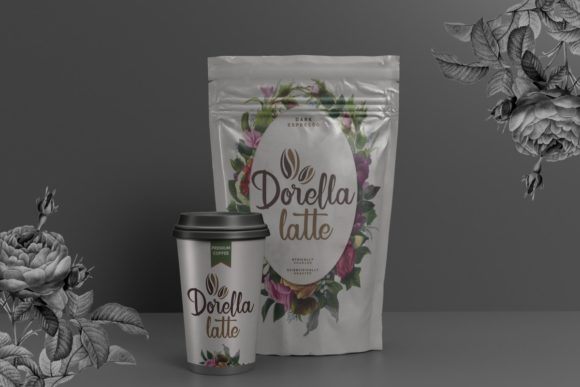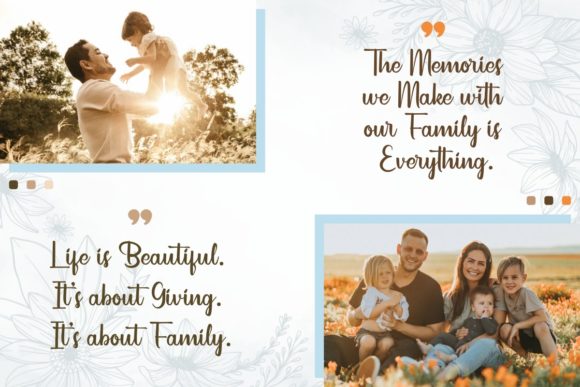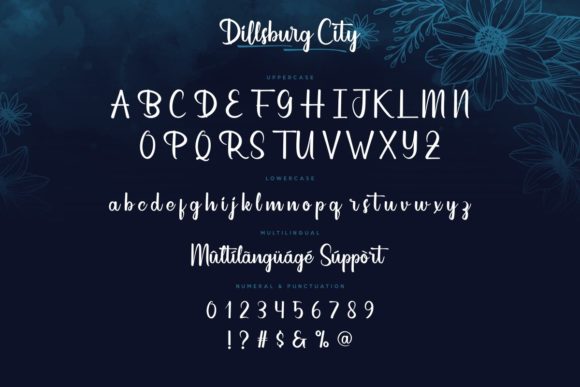
Introduction to Dillsburg City Font
Have you ever been stuck in the midst of a creative project, searching for that perfect font to bring your design to life? As a designer, you know how crucial the right typography can be in setting the tone and aesthetic of your work. I’m sure you’ve found yourself scrolling through font libraries, only to end up with a plethora of options that just don’t quite fit the bill. Well, today’s your lucky day! I’m excited to introduce you to the stunning Dillsburg City Font, a lovely and delicate script font that’s sure to add a touch of luxury to any design project.
Not only does the Dillsburg City Font exude elegance and class, but it’s also remarkably easy to use, thanks to its PUA encoding. This means you can access all of the amazing glyphs and ligatures with ease, making it a valuable resource for designers of all levels.
Key Features of Dillsburg City Font
• High-quality design resource ideal for creative projects
• Unique, modern design that adds a touch of sophistication to any creative project
Honest Review: Dillsburg City Font
As a designer, I’m always on the lookout for high-quality design resources to enhance my creative projects. Recently, I stumbled upon the Dillsburg City Font, and I must say it’s a great find.
Here are the things that work well with the Dillsburg City Font:
• ✨ Its unique, bold style is perfect for adding a touch of personality to my designs.
• ✨ It’s incredibly versatile and can be used for a wide range of creative projects, from logos to signage.
However, I do have a few minor complaints:
• ⚠️ The font could benefit from more font weights and styles to make it even more versatile.
• ⚠️ Some of the characters may not be as smooth or polished as I’d like, but this is a minor quibble.
Overall, I’m really impressed with the Dillsburg City Font. It’s a great addition to any designer’s toolkit, and I’m excited to see how it can elevate my future creative projects.
For the most out of the Dillsburg City Font, use it in combination with other design elements, such as images and graphics. It’s perfect for creating eye-catching headings, titles, and labels. Some common use cases include branding, marketing materials, and digital art projects.